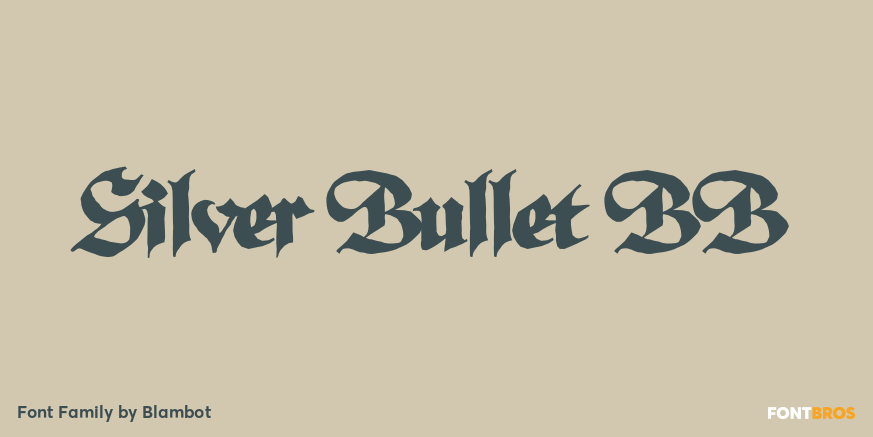
HomeFont BrosHandwrittenSilver Bullet BB HandwrittenHistorical Silver Bullet BB FacebookXPinterestWhatsApp 1 of 1 About Silver Bullet BB SLVER BULLET BB is a howling good gothic/blackletter typeface with an infectious bite! Comes with Regular and Italic and has a wolf-pack of European characters!  DOWNLOAD ON FONT BROSThis font is sold and delivered by Font Bros. Font Canyon may earn a commission if you buy through this link. People also explored Thick Font Antique Vignette Font Romance Font Bunnyheart Font Kleo Blue Srikatton Font CapturaNow Bittersweet Memories Font Kitchen Font 338 0 TagsSilver Bullet BB Font Previous articleChilidog PBNext articleMuseo Sans Cyrillic LEAVE A REPLY Cancel reply Comment: Please enter your comment! Name:* Please enter your name here Email:* You have entered an incorrect email address! Please enter your email address here Website: Save my name, email, and website in this browser for the next time I comment. Personal Use Free Pasile Personal Use Free Read more about this font Ayam Bakar Personal Use Free Read more about this font Roustel Personal Use Free Read more about this font Jurnal Personal Use Free Read more about this font BLOG Free vs Paid Fonts: Why Investing in Premium Fonts Is Worth It Free vs Paid Fonts: Why Premium Fonts Are Worth It in 2025 The debate of free vs paid fonts continues in the design world. While... Where to Buy American Fonts Online in 2024 Elegant Wedding Invitation Fonts – Handwritten & Script Fonts 5 Fonts That Will Dominate Design Trends in 2026